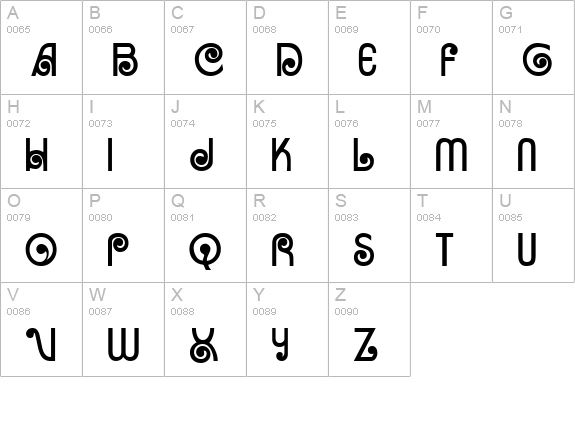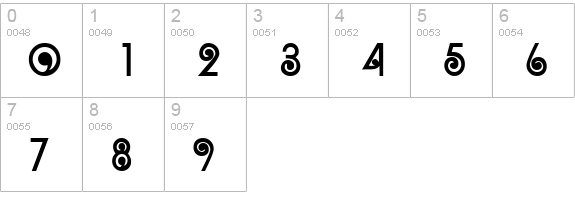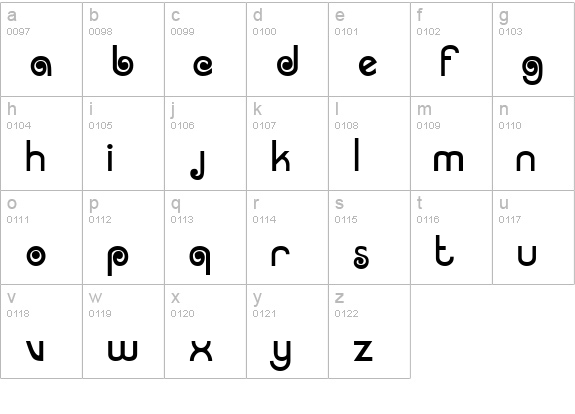
Arruba Font Details
Arruba font is a stunning display typeface that combines elegance with a touch of modernity. With its sleek lines and distinctive curves, Arruba is perfect for adding a sophisticated flair to any design project. Whether you're creating a logo, poster, or website, this versatile font will make your text stand out and capture attention. Designed with precision and attention to detail, Arruba offers a wide range of ligatures, alternates, and swashes to enhance your typography. Its bold and eye-catching appearance makes it ideal for headlines, titles, and branding materials. The versatility of Arruba font allows it to be easily paired with both serif and sans-serif typefaces, adding depth and personality to your designs. The best part? Arruba font is completely free to download at FontsMarket.com. This means you can elevate your projects without breaking the bank. Don't miss out on the opportunity to enhance your designs with the elegance and style of Arruba font. Download it today and see the difference it can make in your creative endeavors.